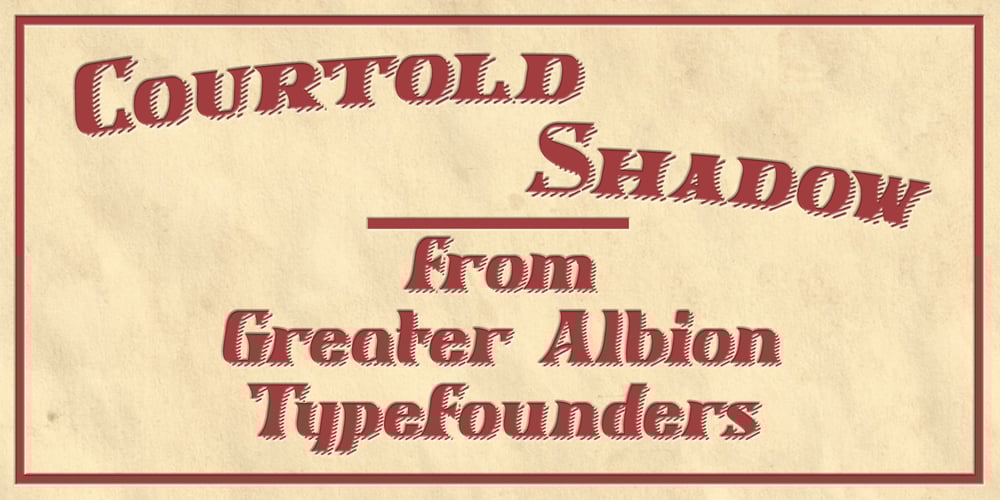
Courtold Shadow
Courtold Shadow font
Courtold Shadow Font Family was designed by Paul James Lloyd and published by Greater Albion Typefounders. Courtold Shadow contains 1 styles and family package options. Courtold Shadow is another of our June 2017 ‘Wood Type’ collection. There is something alive and energetic about these ‘rushing’ oblique letter forms with their diagonal shadow. Ideal for signage and poster work.